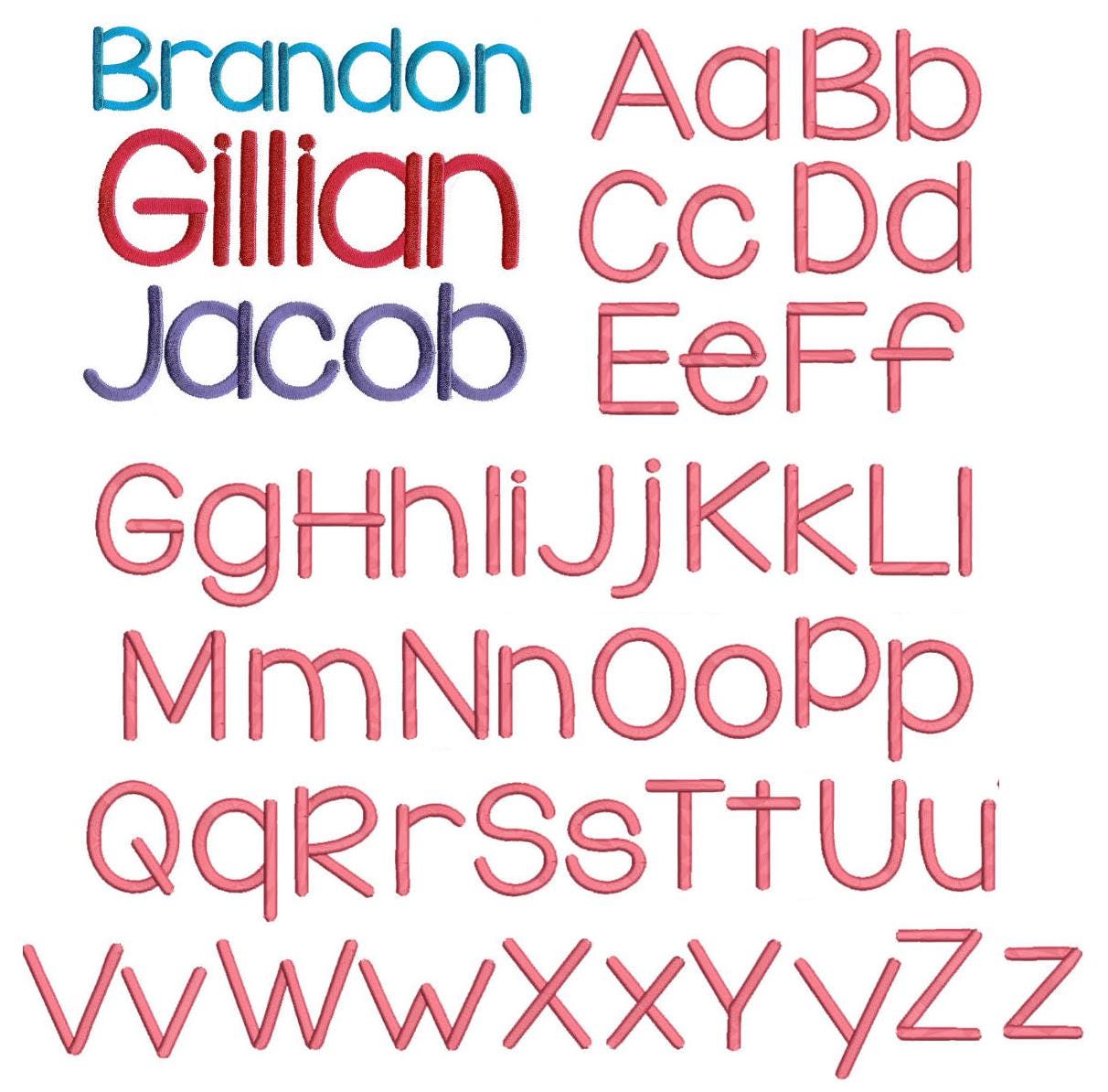
Lego House Satin Stitch Embroidery Font
I LOVE this font! A little on the thicker side, it stitches so beautifully and is fabulous for personalizing any of your projects! All of our fonts are 100% manually digitized to bring you excellent stitch quality.